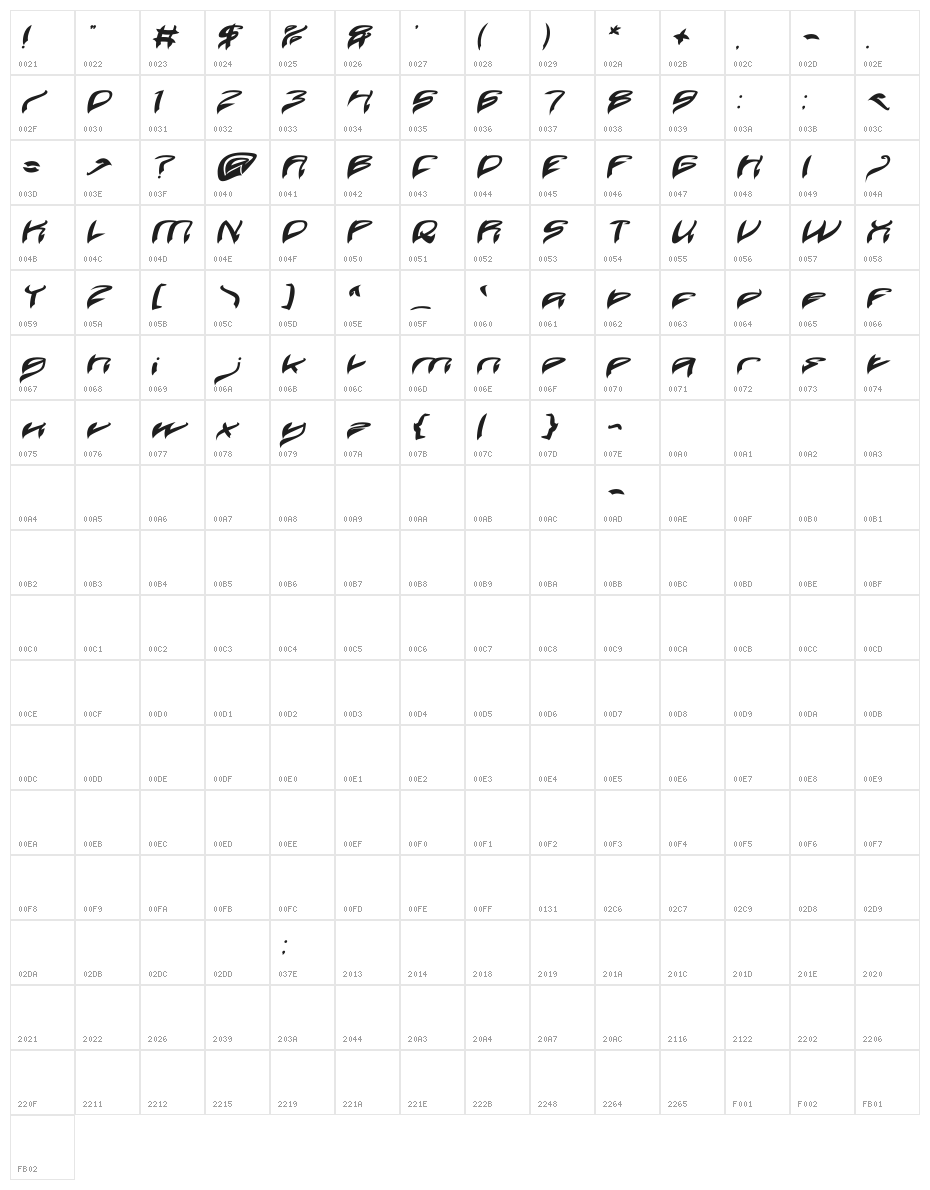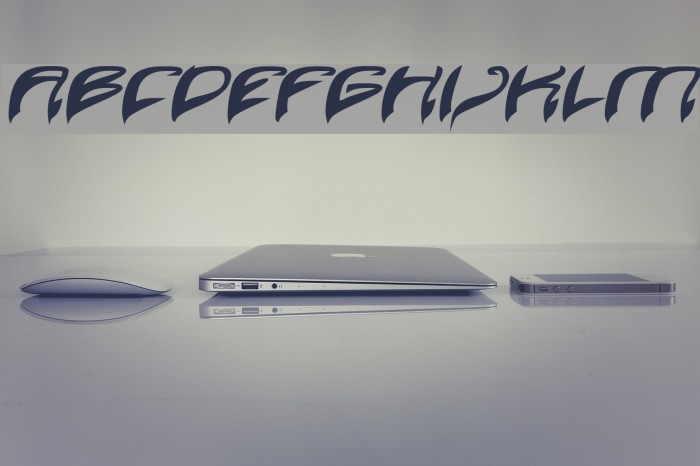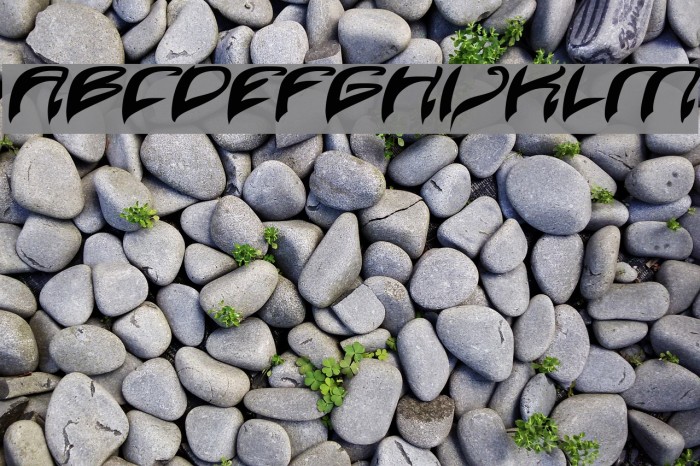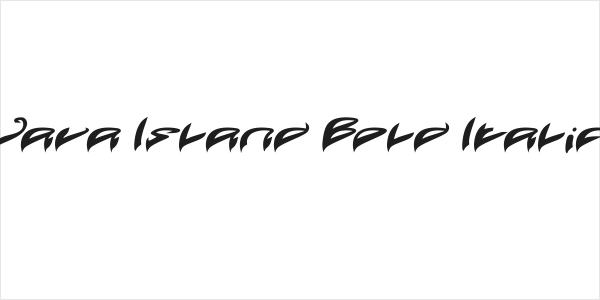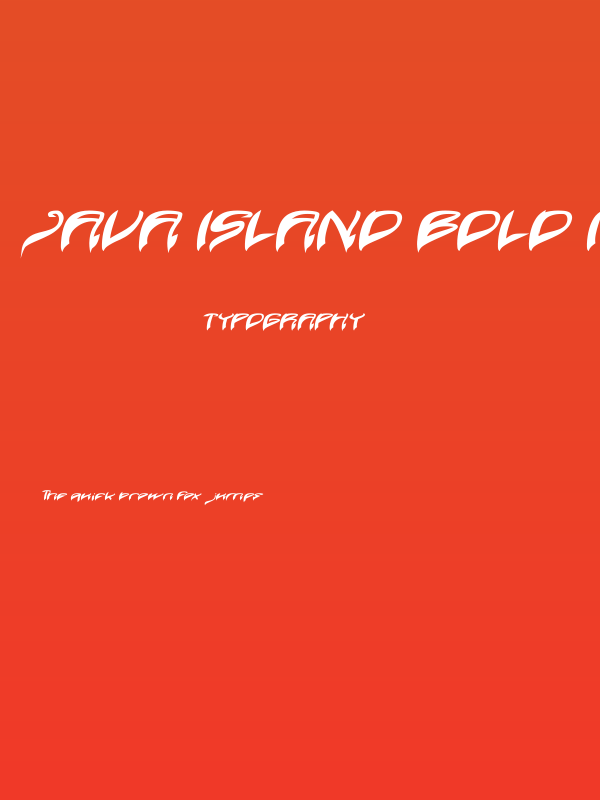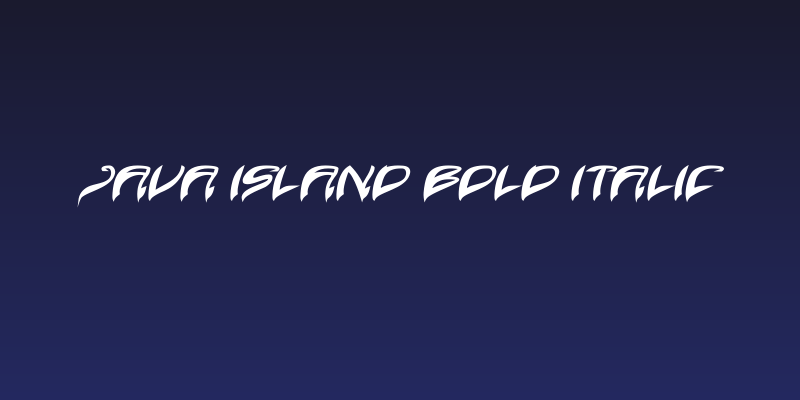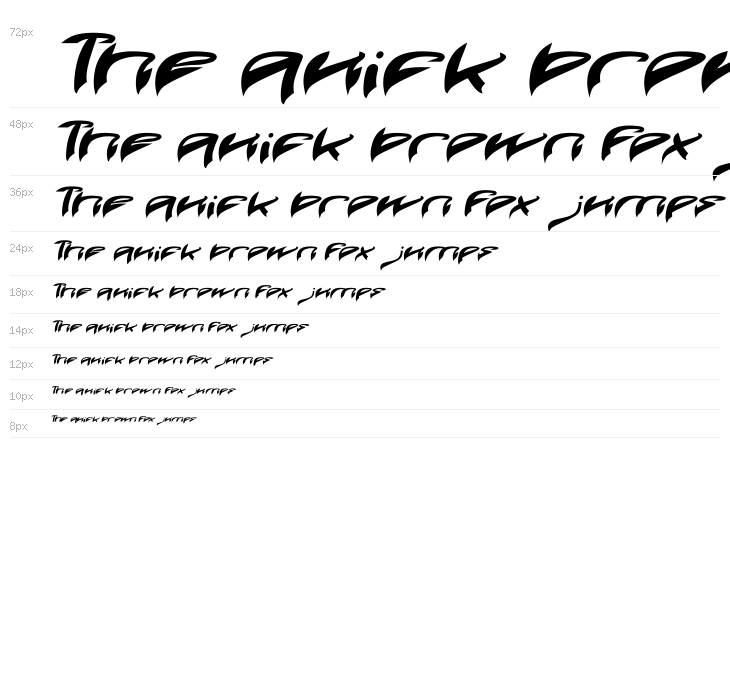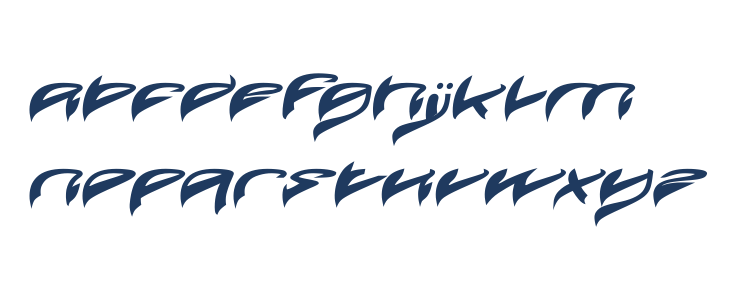
Java Island Bold Italic Font
Java Island Bold Italic Description
This font features a bold and italicized style with a dynamic and energetic flair. The characters are sharply angled, giving them a sense of motion and aggression. The strokes are thick and consistent, providing a strong visual impact. The uppercase and lowercase letters maintain a cohesive design, with unique flourishes that add to the font's distinctive appearance. Numbers and special characters follow the same bold and italicized theme, ensuring uniformity across all glyphs. This font is ideal for projects that require a bold statement and a modern, edgy look.
| Proposed Projects | Ideal for sports branding, action movie posters, video game titles, and dynamic logo designs. |